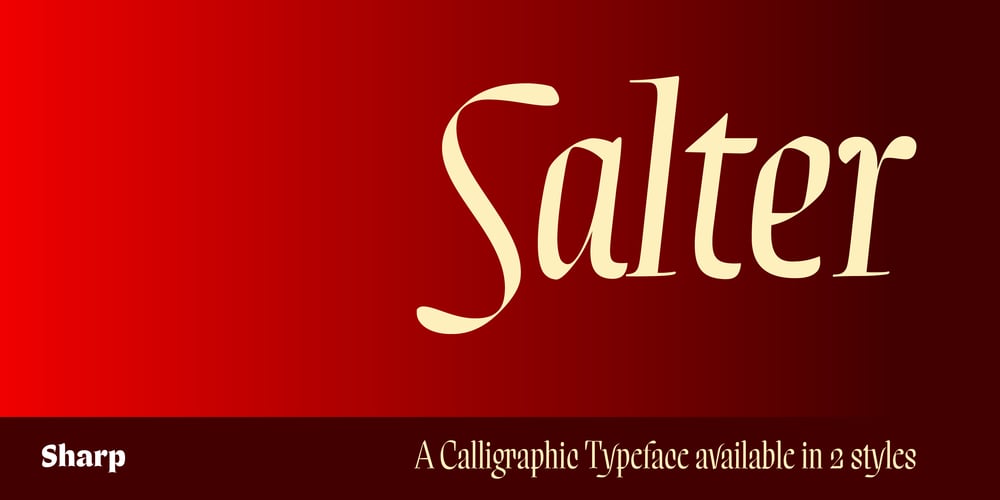
Salter Font Family was designed by Lucas Sharp, My-Lan Thuong, Wei Huang and published by Monotype. Salter contains 2 styles and family package options. Salter is an exploration of 20th century book jacket calligraphy by Lucas Sharp. The typeface is a loving homage to various designs attributed to Oscar Ogg and George Salter, two masters of this period, and strives to bring out their respective genius into a standalone typeface. While Salter roman draws its construction methodology from the work of Ogg, the lowercase italic construction is based on a piece of lettering penned by Salter in 1941. The contrast of blunt, chiseled edges and loose, inky terminals echo the dynamic moments in history that these two artists inhabited. The act of systematizing something as singular and improvisational as Oscar Ogg or George Salter’s calligraphy brings this typeface into a new state of being that is contradictory to its original nature yet captures the eccentric spirit of its two inspirations.